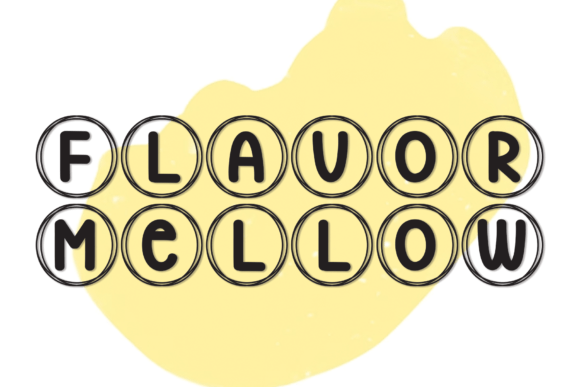
Enter Flavor Mellow Font, a stunning organic and decorative font that’s sure to take your designs to the next level. With its beautiful ornaments and elegant flair, this font is the perfect addition to any creative library. Whether you’re crafting a wedding invitation, designing a logo, or simply looking to add some visual interest to your blog, Flavor Mellow Font has the power to elevate your creations and leave a lasting impression.
Key Features of Flavor Mellow Font
- Font Family: Flavor Mellow Font is a unique, hand-drawn font family with a warm and inviting feel.
- Unique Characteristics: Features a distinctive, handwritten style with subtle imperfections, giving it a natural and organic feel.
- Font Styles: Includes multiple font styles, including regular, bold, italic, and bold italic, to provide flexibility in design applications.
Flavor Mellow Font Review
I recently had the chance to work with the Flavor Mellow Font, and here’s my honest take on it.
- The font’s friendly and approachable vibe makes it perfect for food-related brands or websites.
- The handwritten feel adds a touch of personality to any design.
- The font is very legible, even at smaller font sizes.
- The font’s quirky feel might not be suitable for all brands or designs.
- The font is not fully optimized for web use, which can lead to display issues in certain browsers.
- The font family is not extremely diverse, with only a few weights and styles available.
Overall, I think the Flavor Mellow Font is a solid choice for the right project, but it’s not a one-size-fits-all solution. With some careful consideration of its limitations, it can add a unique touch to your design.
Flavor Mellow Font is ideal for creative projects, such as:
– Food and beverage branding
– Packaging design
For best results, use Flavor Mellow Font in conjunction with bold, bright colors and playful graphics.
Alternatives to Flavor Mellow Font
Comparison to Flavor Mellow Font: Lato has a more minimalist and neutral feel, whereas Flavor Mellow Font has a softer, more rounded appearance. Use Lato when you need a clean and simple font for your design.
Comparison to Flavor Mellow Font: Merriweather has a more formal and traditional feel, whereas Flavor Mellow Font has a more casual and modern appearance. Use Merriweather when you need a font that conveys a sense of authority and sophistication.
Comparison to Flavor Mellow Font: Open Sans has a more modern and clean feel, whereas Flavor Mellow Font has a softer and more rounded appearance. Use Open Sans when you need a font that is highly legible and versatile.
Is Flavor Mellow Font available in both serif and sans-serif styles?
No, Flavor Mellow Font is a sans-serif font. Its clean and modern design makes it well-suited for a wide range of applications, from digital interfaces to print materials.